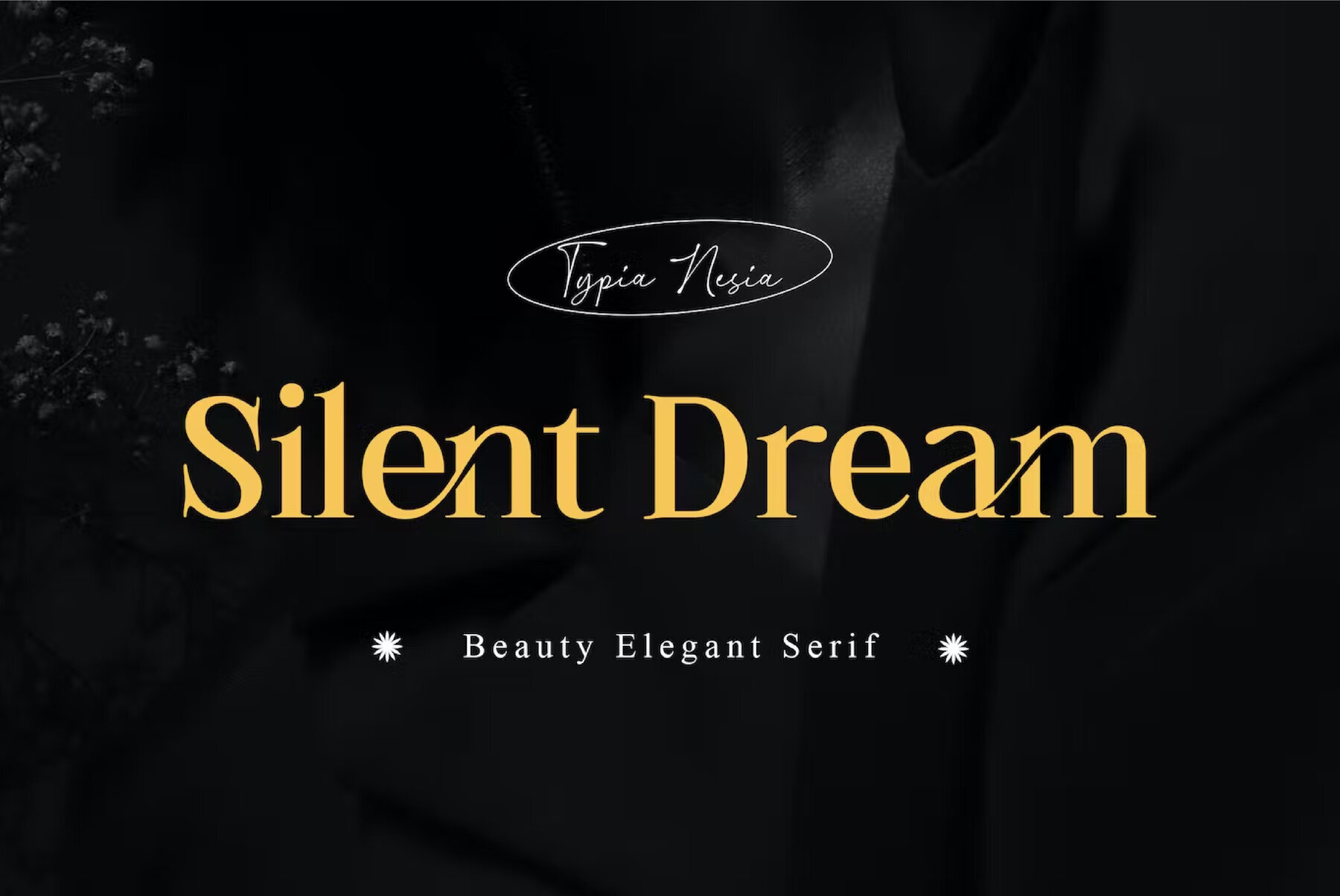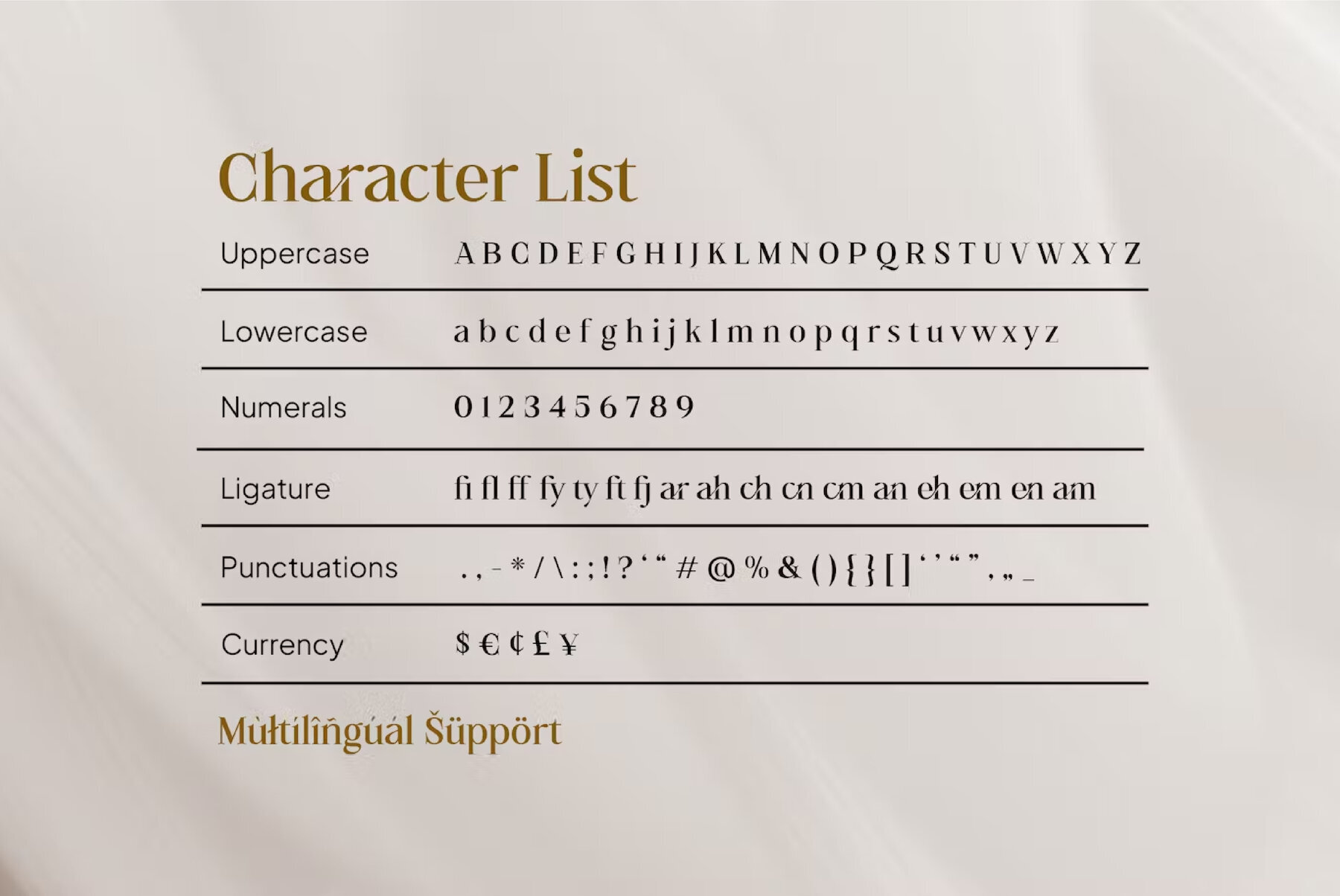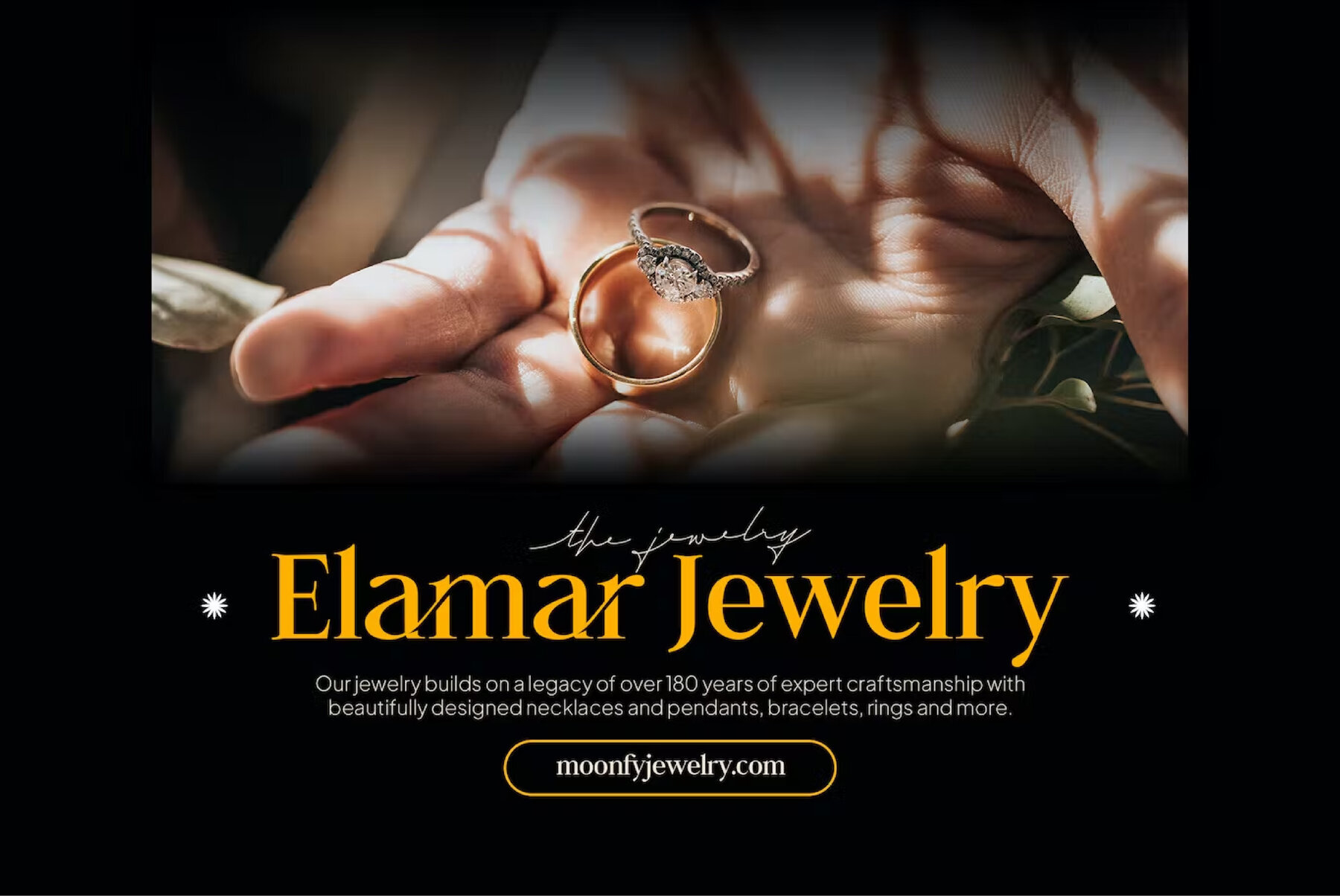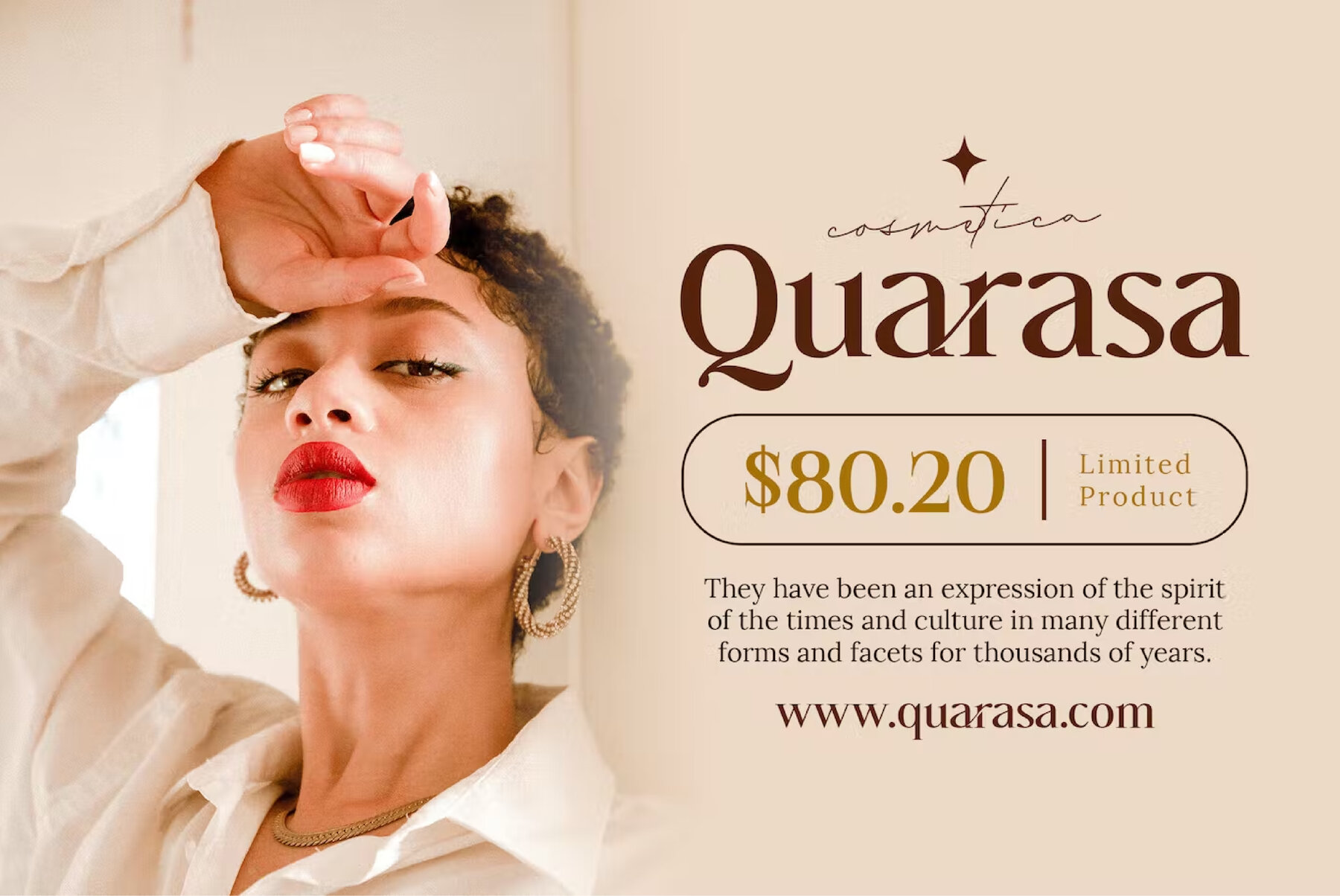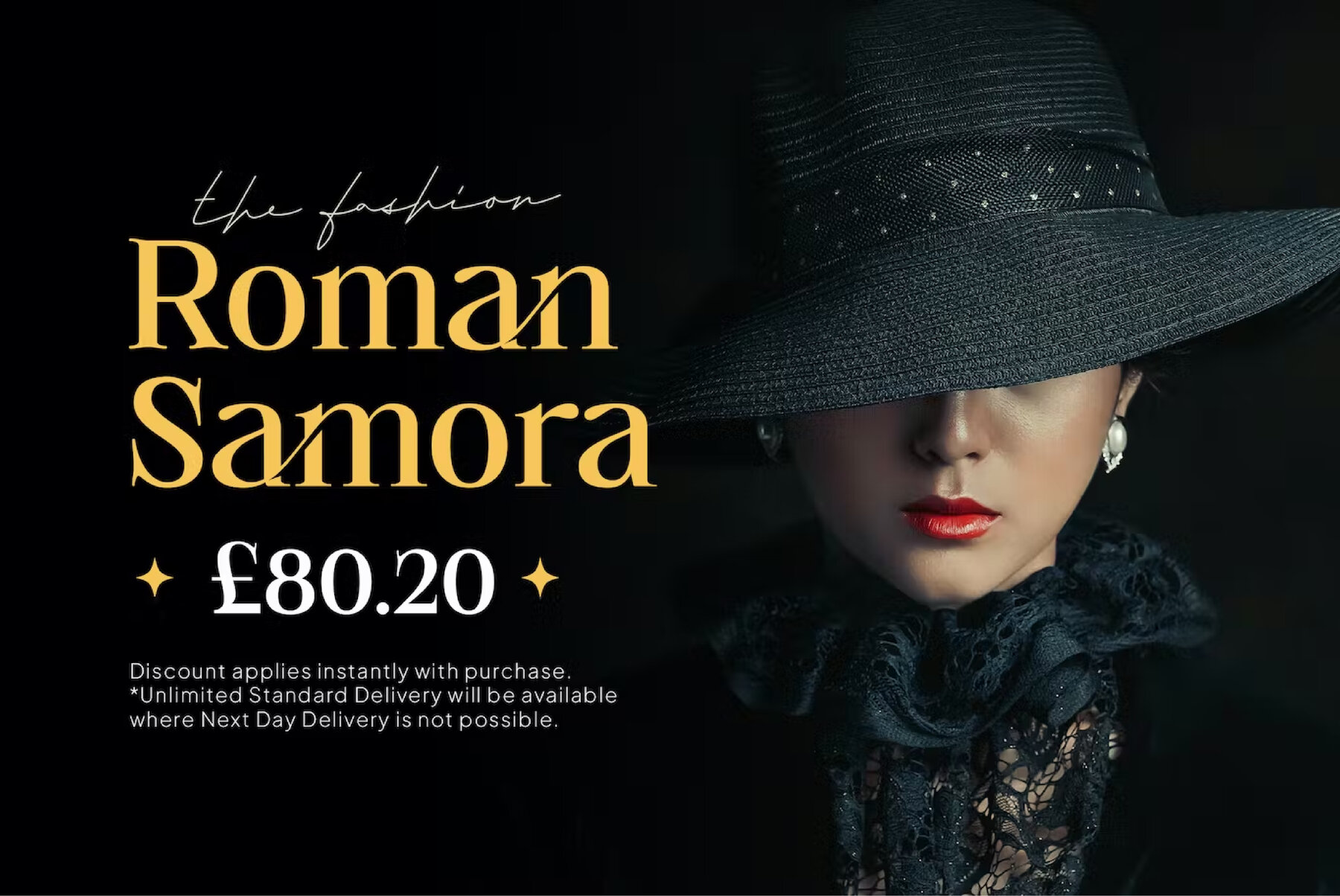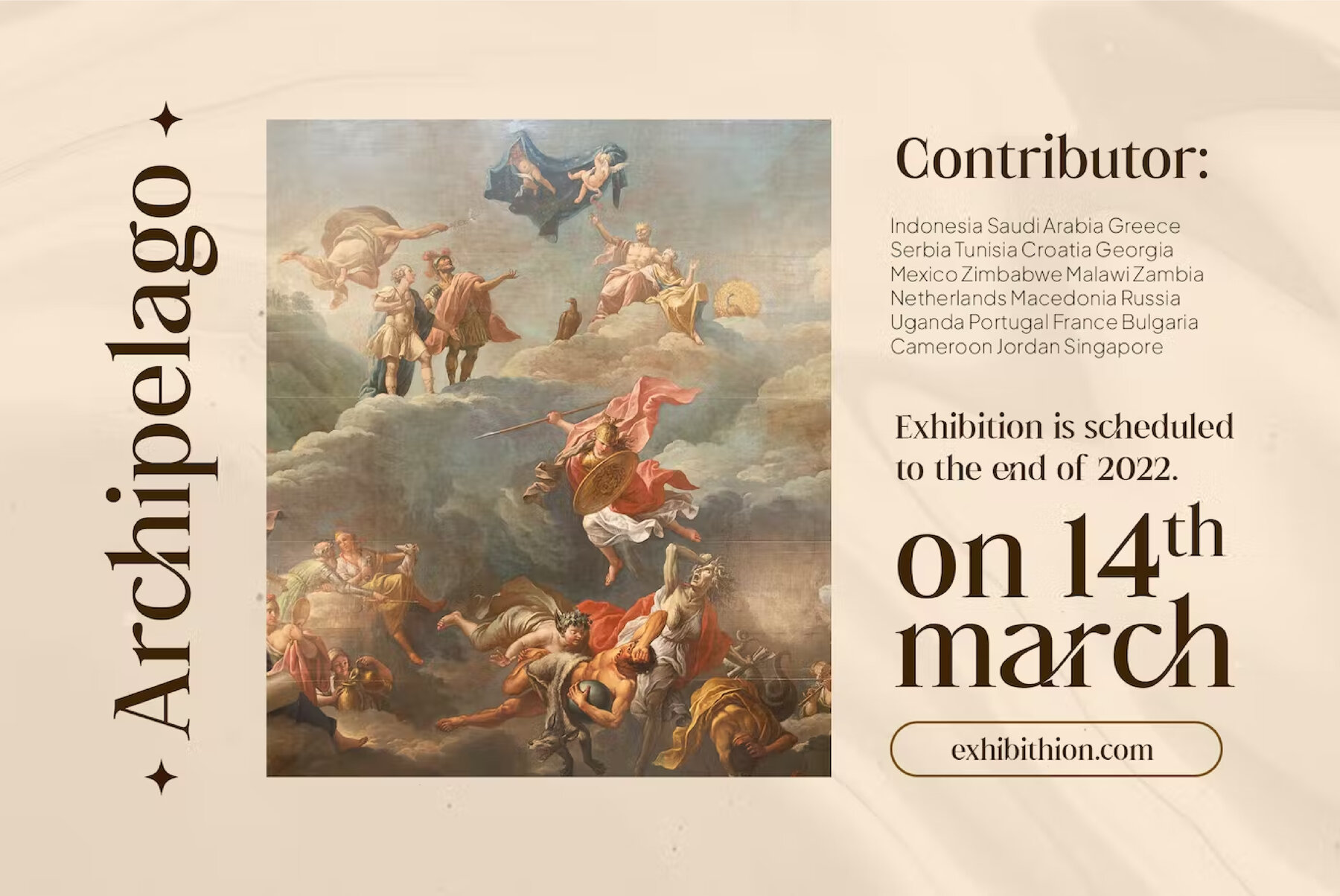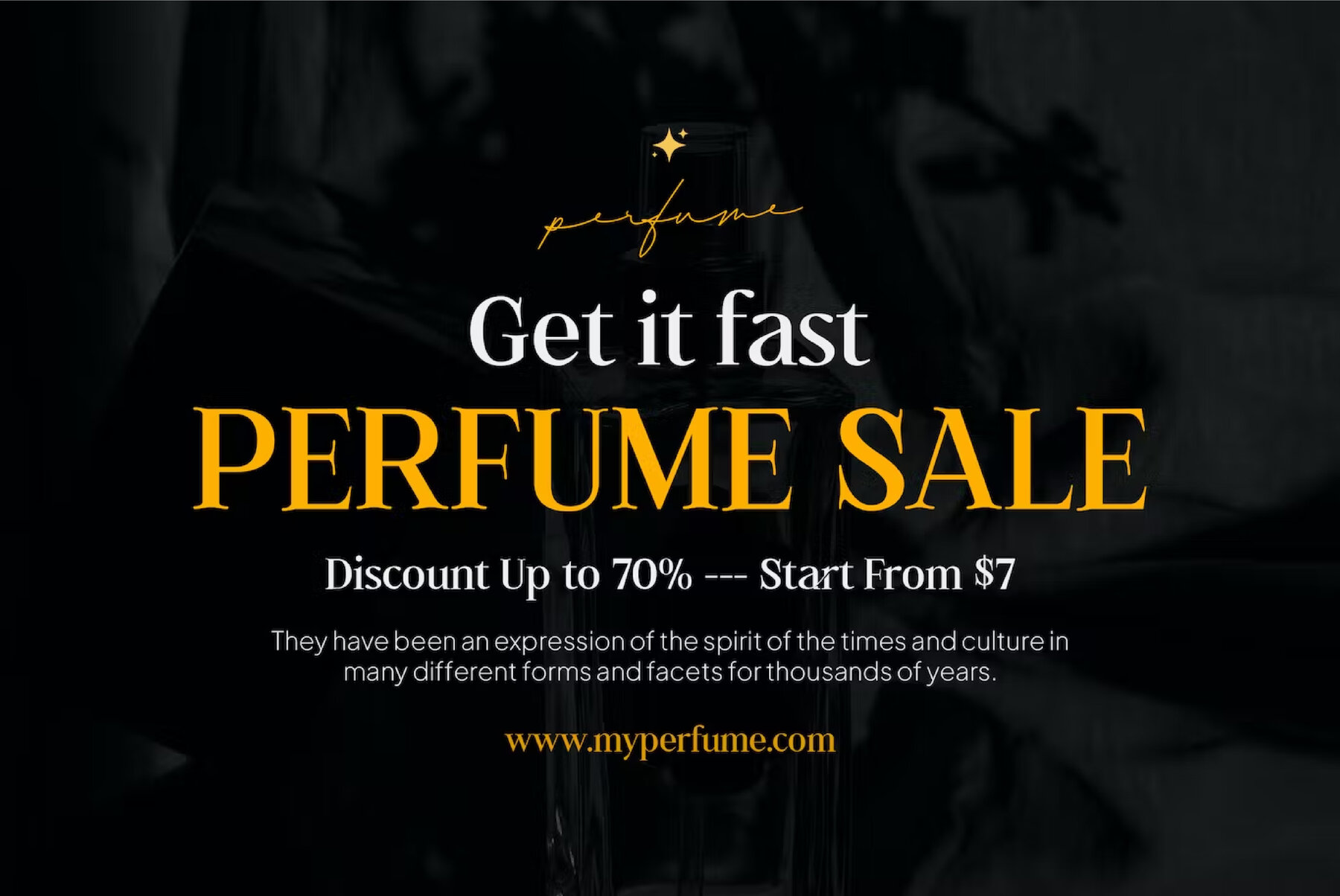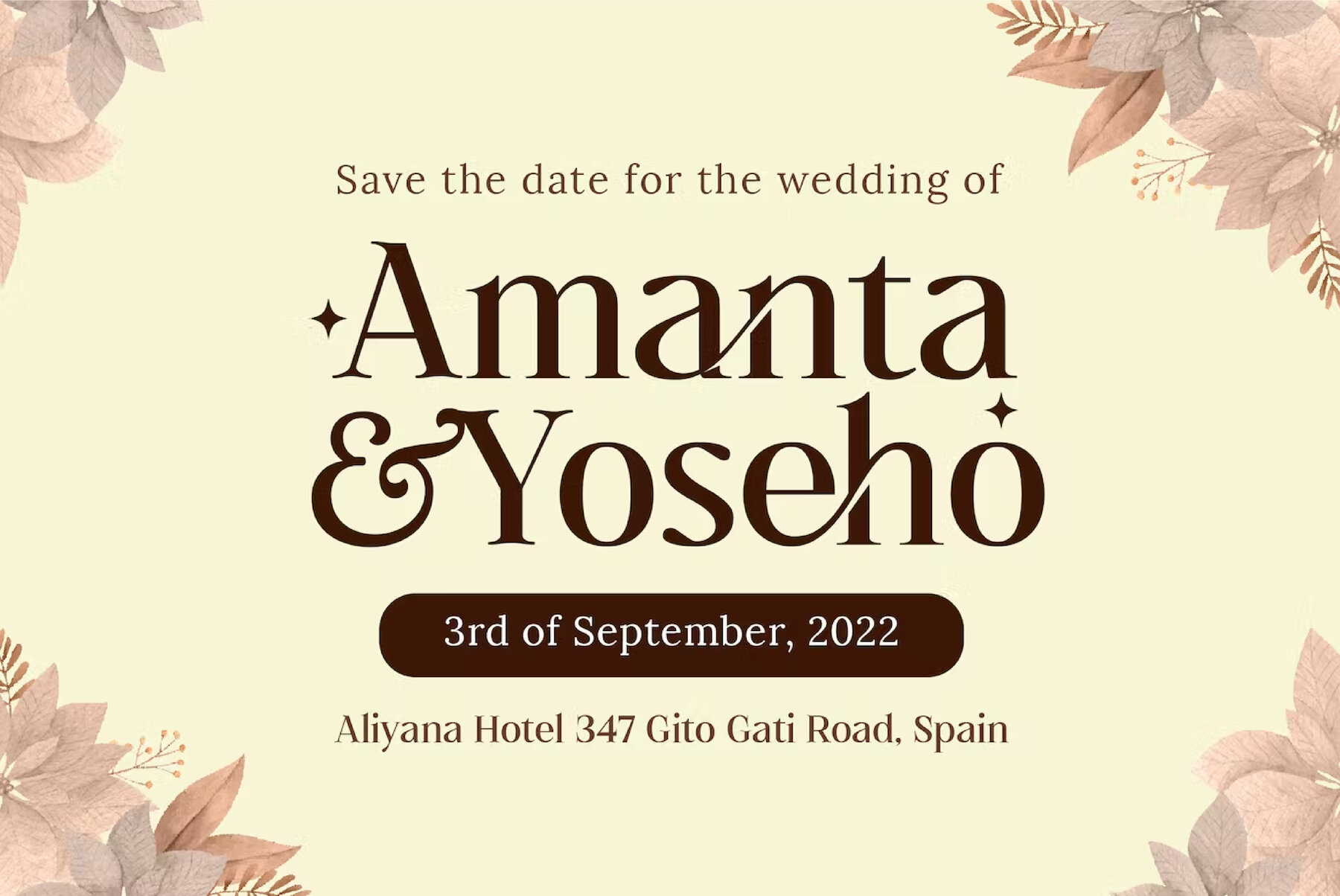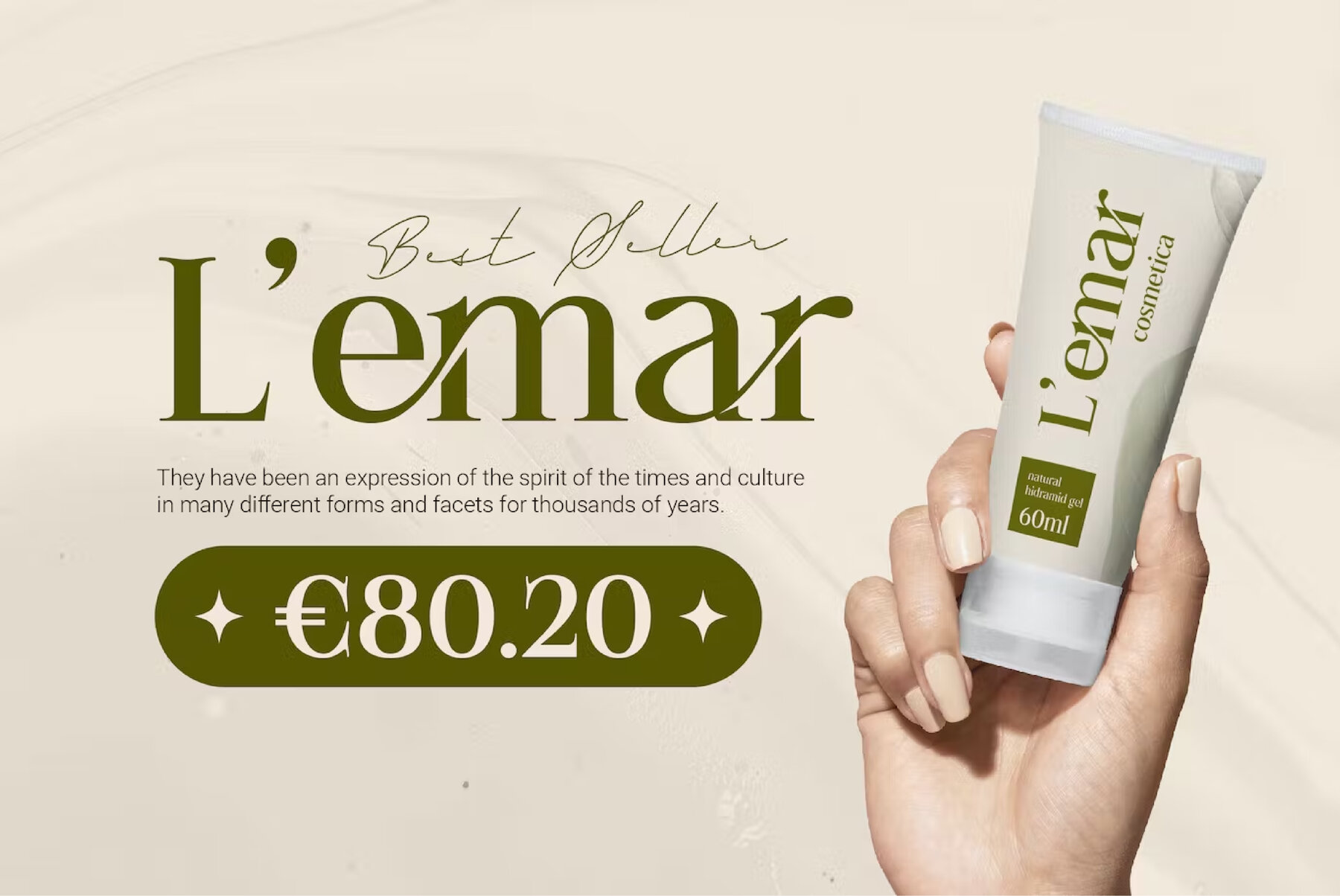
Silent Dream Font
Silent Dream Regular
Silent Dream offers a touch of sophistication and elegance to any design project. This refined serif font is ideal for creating a sense of prestige and timeless beauty, making it suitable for a variety of applications, from luxury branding to editorial design. Crafted with a modern aesthetic, Silent Dream effortlessly enhances logos, magazines, and promotional materials with its romantic and feminine charm.Silent Dream: Elegance in Modern Aesthetic Serif